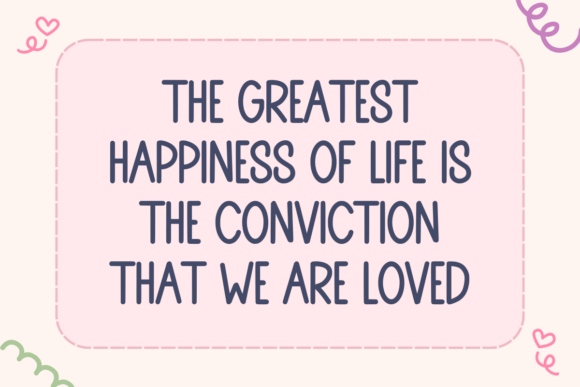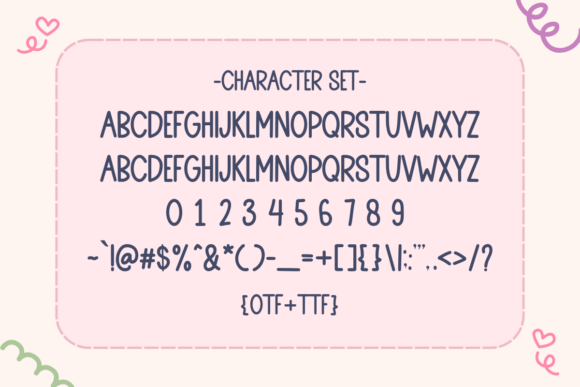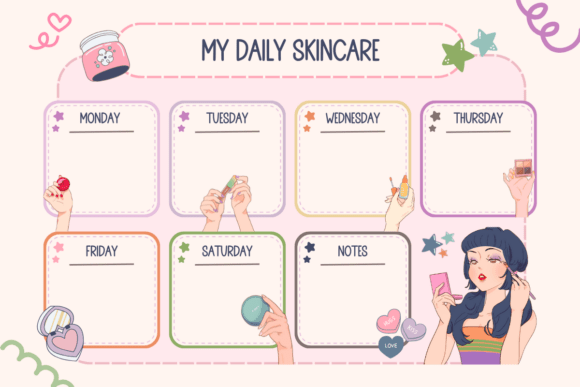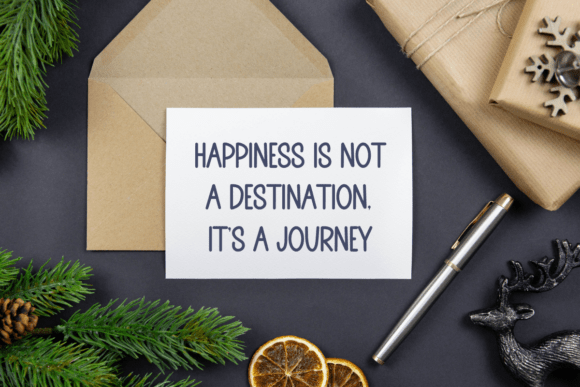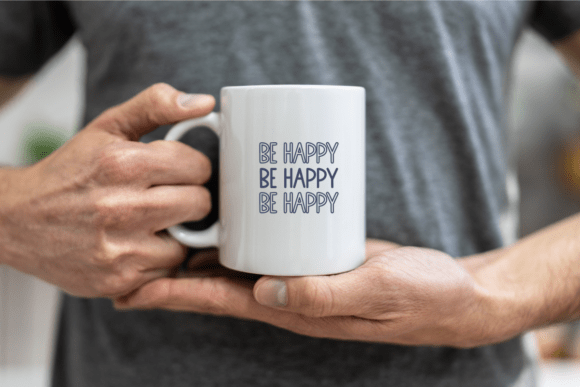
Introducing Happy Purple: The Ultimate Fun and Playful Handwritten Font for Crafters and Designers
Are you a crafter, designer, or maker looking for a font that adds a touch of fun and playfulness to your projects? Look no further than Happy Purple, a delightful handwritten font that’s perfect for a wide range of creative endeavors. In this article, we’ll explore the features and benefits of Happy Purple, and how it can elevate your crafts, planners, KDP, stickers, greeting cards, and more.
What is Happy Purple?
Happy Purple is a carefully crafted handwritten font that’s designed to bring a smile to your face. Its cute and friendly style makes it an ideal choice for crafters, designers, and makers who want to add a personal touch to their projects. Whether you’re creating DIY crafts, planners, or social media graphics, Happy Purple is the perfect font to inject a dose of fun and personality into your work.
Perfect for Crafters and Makers
Crafters and makers, rejoice! Happy Purple is the perfect font for your next project. Its playful style works beautifully for:
- Cricut projects: Add a personal touch to your Cricut crafts, such as vinyl decals, iron-on designs, and paper crafts.
- Sublimation projects: Create stunning sublimation designs for t-shirts, mugs, and other products with Happy Purple.
- Stickers and labels: Use Happy Purple to create fun and colorful stickers and labels for your planners, journals, or products.
- Greeting cards and invitations: Add a touch of whimsy to your greeting cards and invitations with this delightful font.
Ideal for Designers and DIY Enthusiasts
Happy Purple is not just limited to crafters and makers; it’s also an excellent choice for designers and DIY enthusiasts. Use it for:
- KDP (Kindle Direct Publishing) projects: Create eye-catching book covers, journals, and planners with Happy Purple.
- Social media graphics: Add a pop of color and personality to your social media graphics, such as Instagram posts and Facebook graphics.
- Planners and organizers: Use Happy Purple to create fun and functional planners, journals, and organizers.
Why Choose Happy Purple?
So, why should you choose Happy Purple for your next project? Here are just a few reasons:
- Unique and playful style: Happy Purple has a one-of-a-kind, handwritten style that’s sure to stand out.
- Easily readable: Despite its playful style, Happy Purple is easy to read, making it perfect for body text and headings.
- Versatile: Use Happy Purple for a wide range of projects, from crafts and planners to social media graphics and KDP projects.
Get Creative with Happy Purple